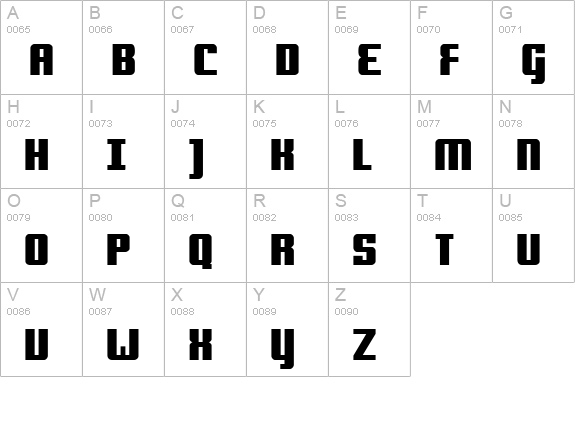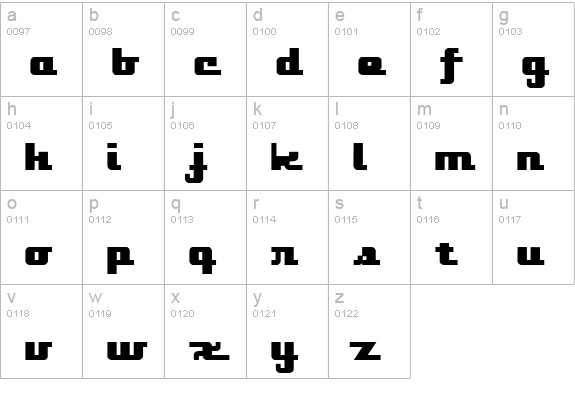
onakite Font Details
Onakite font is a stunning and versatile typeface that is sure to make your designs stand out. With its elegant curves and stylish details, this font is perfect for a wide range of projects, from branding to editorial design. The Onakite font is available for free download at FontsMarket.com, making it easy to add a touch of sophistication to your work without breaking the bank. Whether you're creating a logo, designing a website, or working on a poster, Onakite font has got you covered with its timeless appeal and modern flair. Download it today and elevate your designs to the next level!